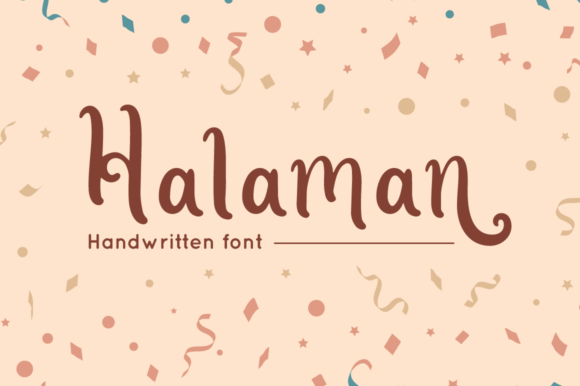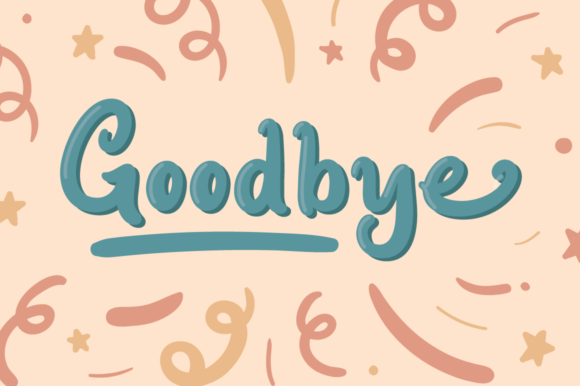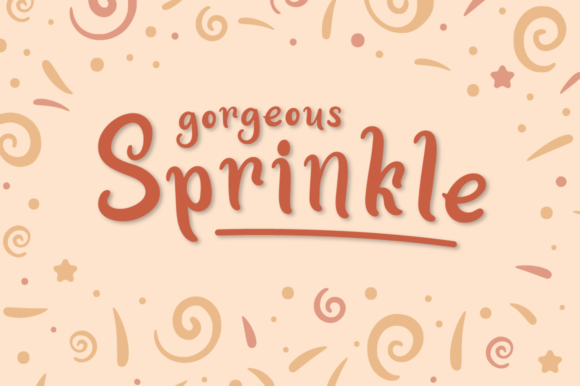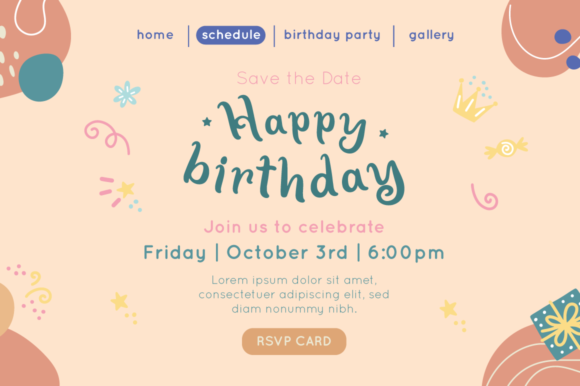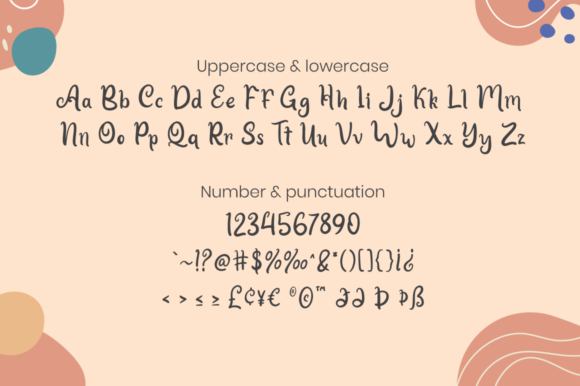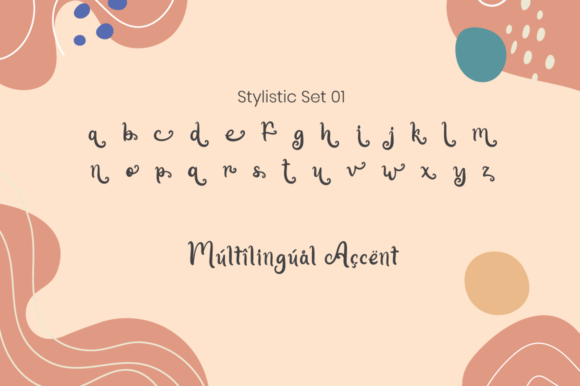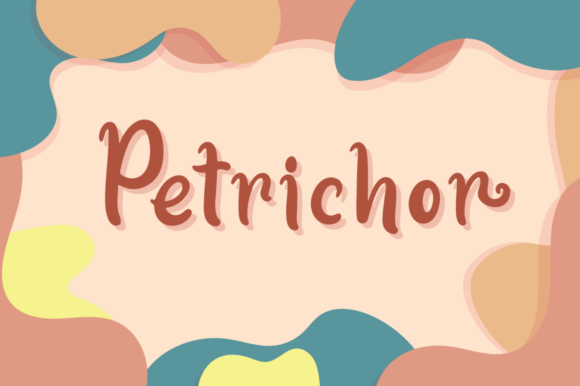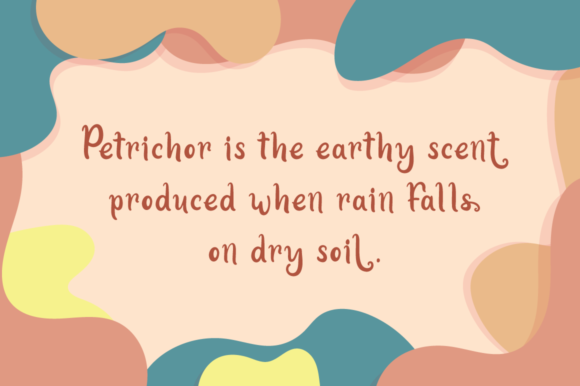
Halaman Font
About Halaman Font
Halaman is a charming and curly handwritten font. Fall for its ravishing style and use it to create gorgeous wedding invitations, beautiful stationary art, eye-catching social media posts, and much more!